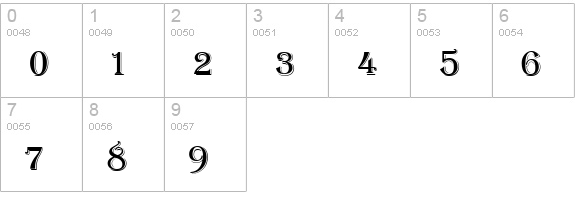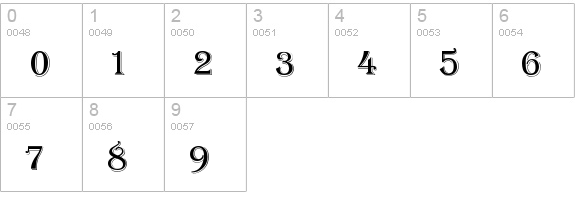
TR Algiers is a modern and stylish font that exudes elegance and sophistication. With its sleek lines and clean design, TR Algiers is perfect for adding a touch of class to any project. This versatile font is suitable for a wide range of uses, from branding and advertising to invitations and social media graphics. The best part about TR Algiers is that it is completely free to download! You can easily access this stunning font at FontsMarket.com and start using it in your projects right away. Don't miss out on the opportunity to elevate your designs with the timeless beauty of TR Algiers. Download it now and see the difference it can make in your work!